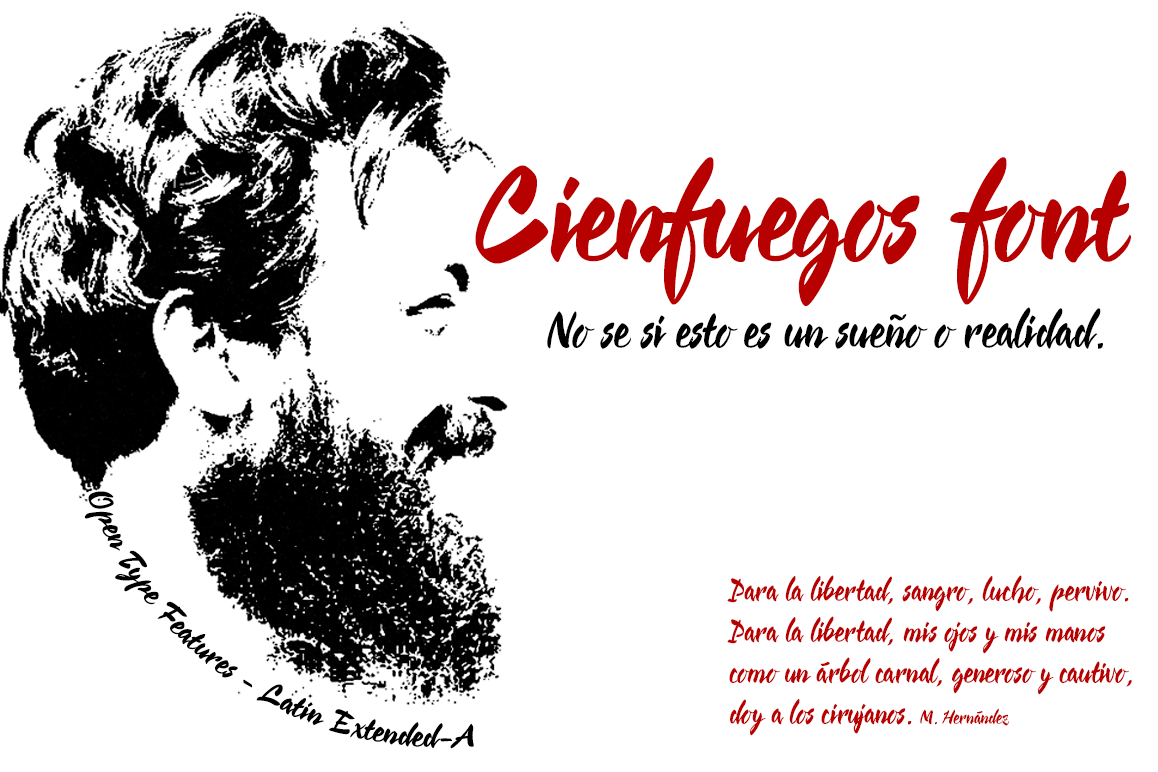
Cienfuegos font
Cienfuegos-Regular
Cienfuegos is a concatenated handwritten font. The name is dedicated to Camilo Cienfuegos, Cuban revolutionary humanist raised in freedom by two Spanish anarchists, their parents.
• Numbers small caps & old style, Bitcoin, Currencies, Denominators, Numerators, Slash zero, Inferiors, Superiors, Dynamic fractions, Ordinals...